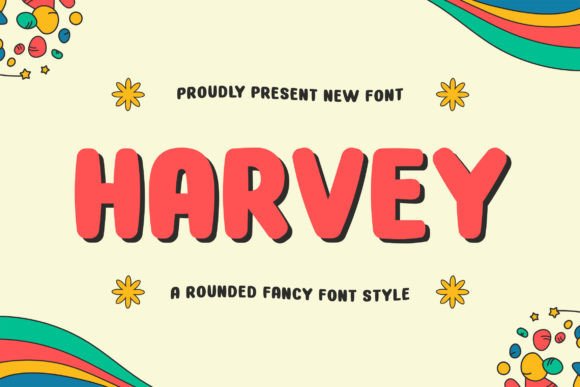
Introducing Harvey Font: A Playful Symphony of Whimsy and Elegance for Your Design Endeavors
Unleash the captivating charm of Harvey Font, a display font family that radiates both playfulness and sophistication. This enchanting rounded fancy font style is meticulously crafted to add a touch of whimsy to your designs, transforming them into captivating works of art.
With its rounded letterforms and intricate fancy details, Harvey Font dances across the screen, leaving a trail of visual delight. It's a font that exudes elegance, making it the perfect choice for branding, logos, and high-end projects that demand a touch of distinction.
Step into the world of Harvey Font and discover a font that's as versatile as it is beautiful. Whether you're crafting wedding invitations that whisper romance, greeting cards that spread joy, or print materials that leave a lasting impression, Harvey Font is your perfect companion. Its allure extends to editorial design, packaging, and any creative endeavor where a sprinkle of fanciness is desired.
Harvey Font is not just a font; it's an expression of your creativity, a reflection of your impeccable taste. Its playful nature adds a touch of lightheartedness, while its sophistication elevates your designs to new heights.